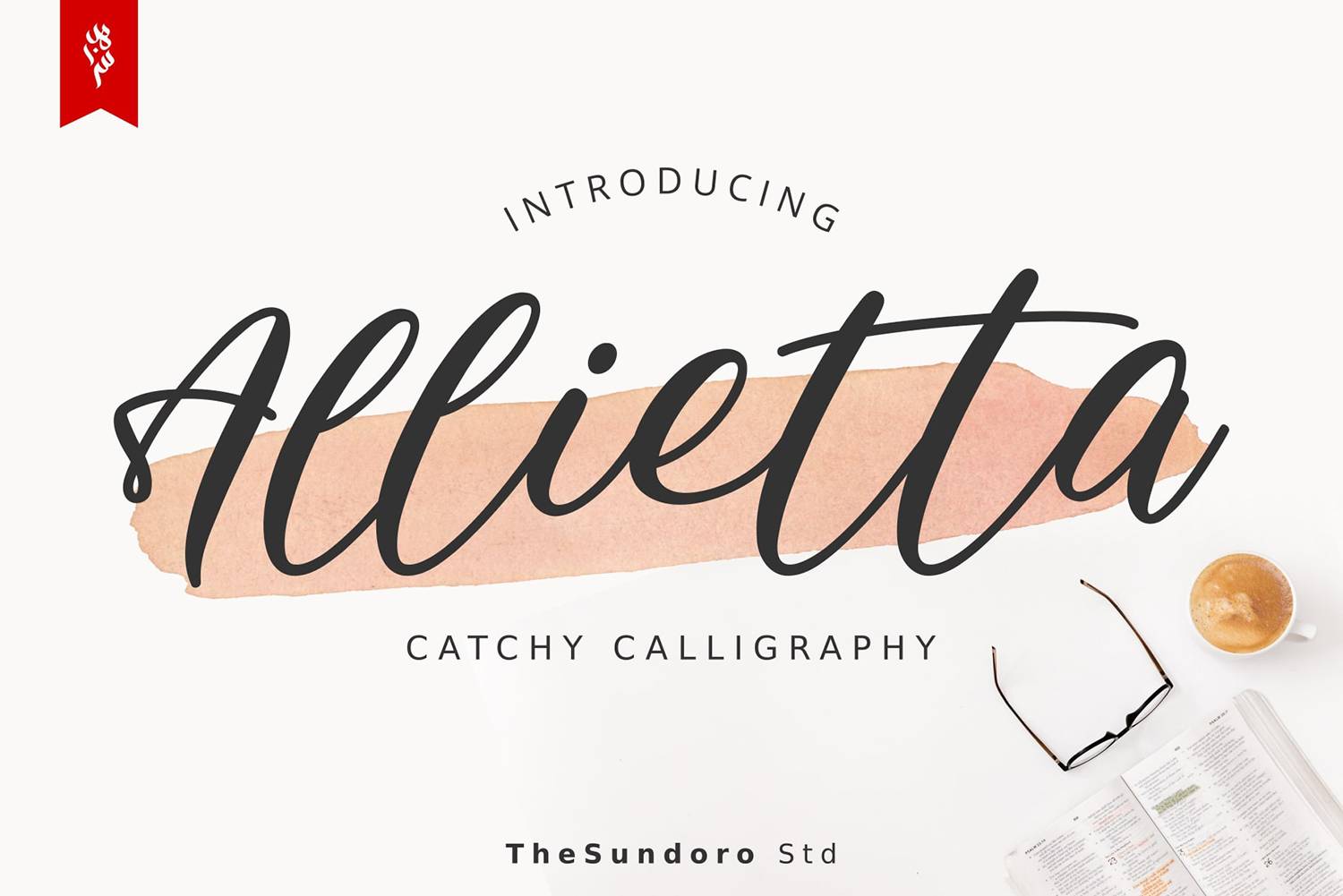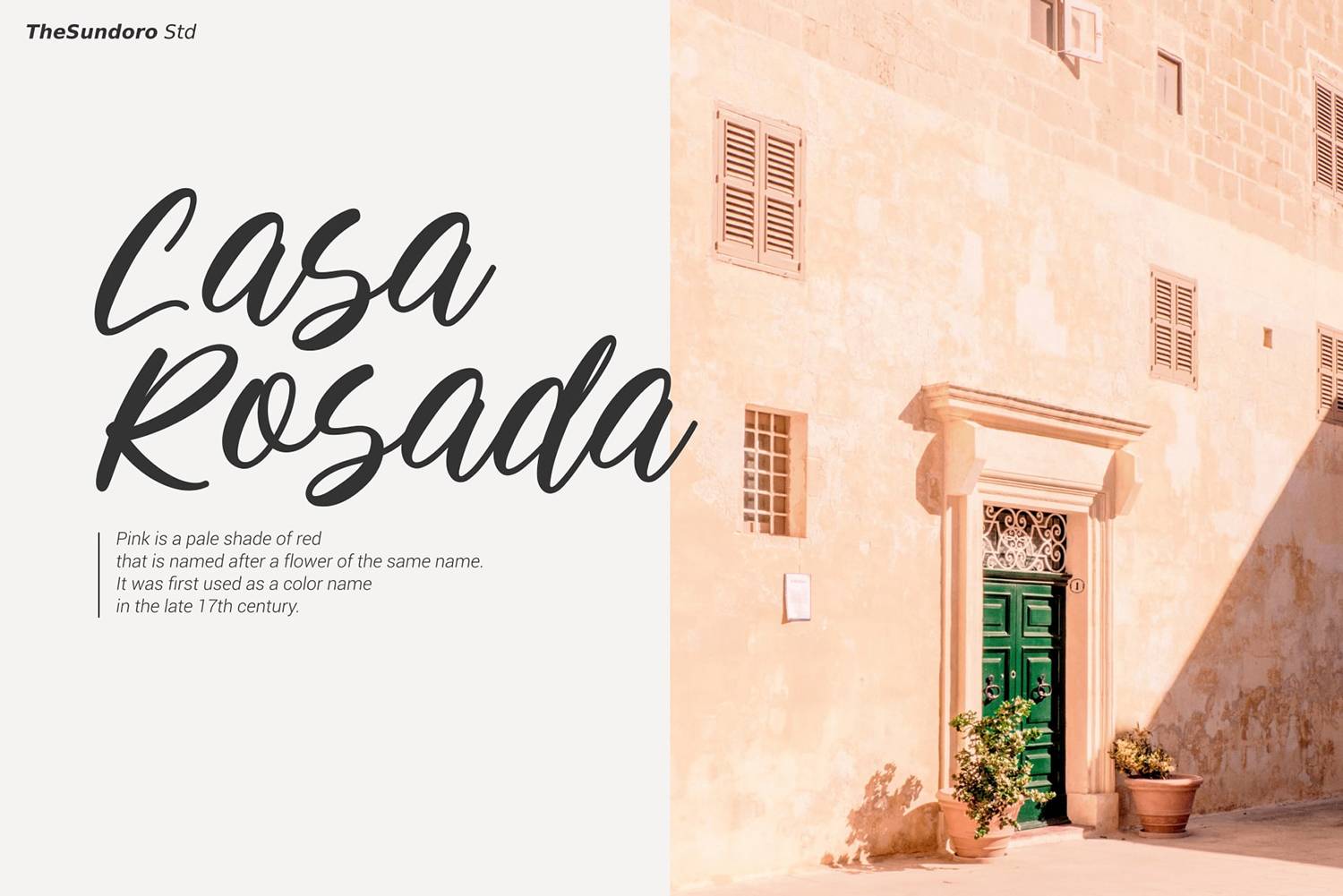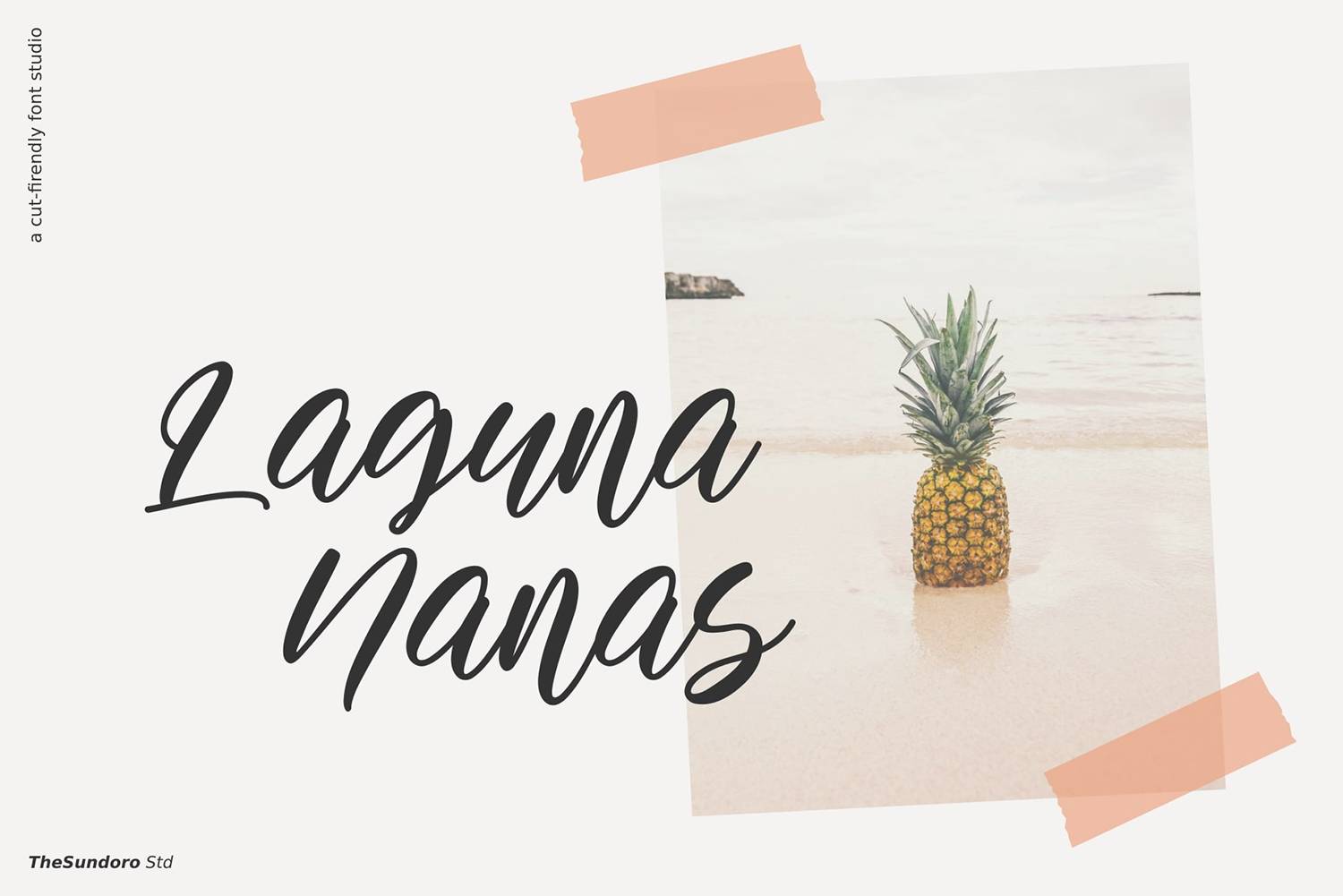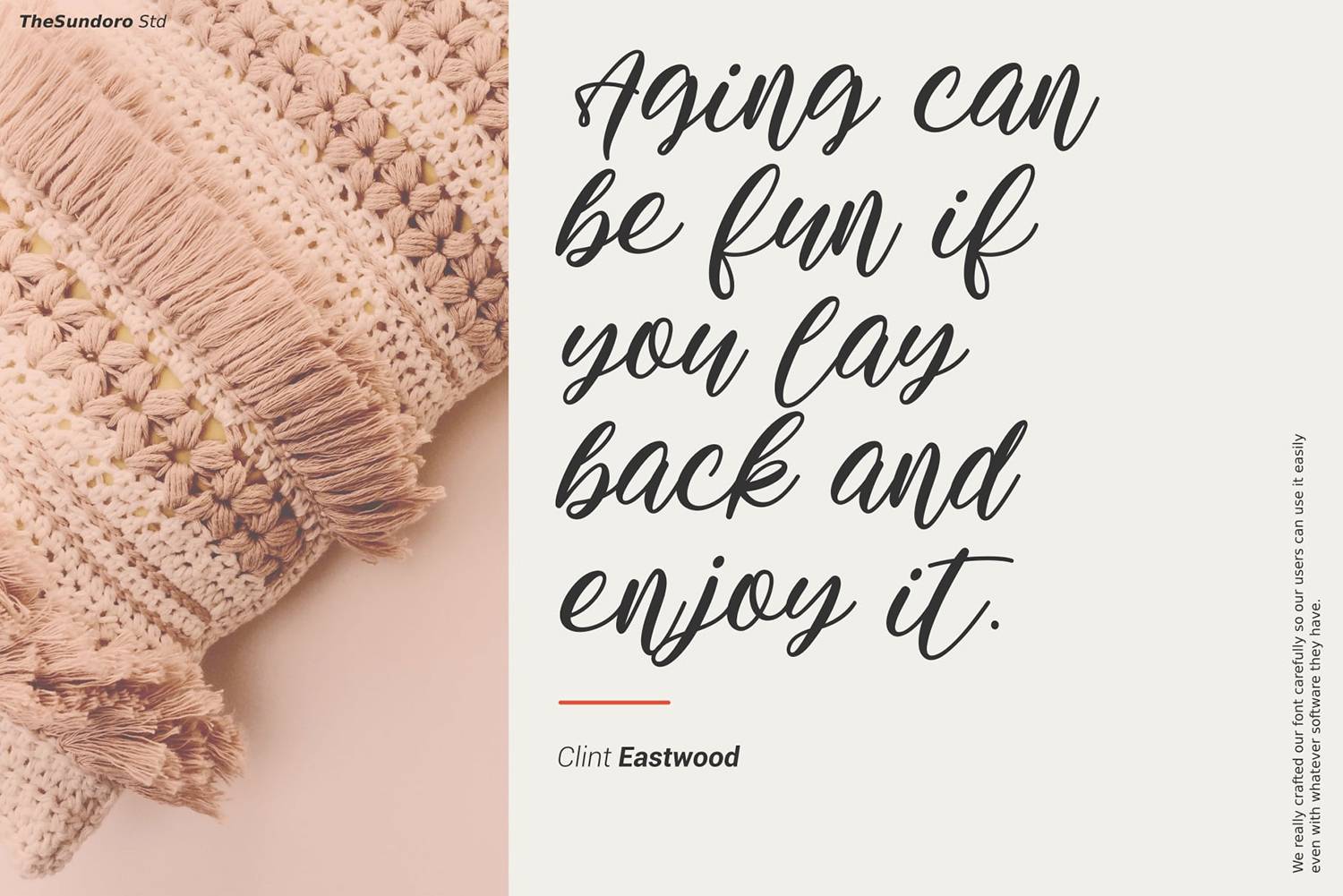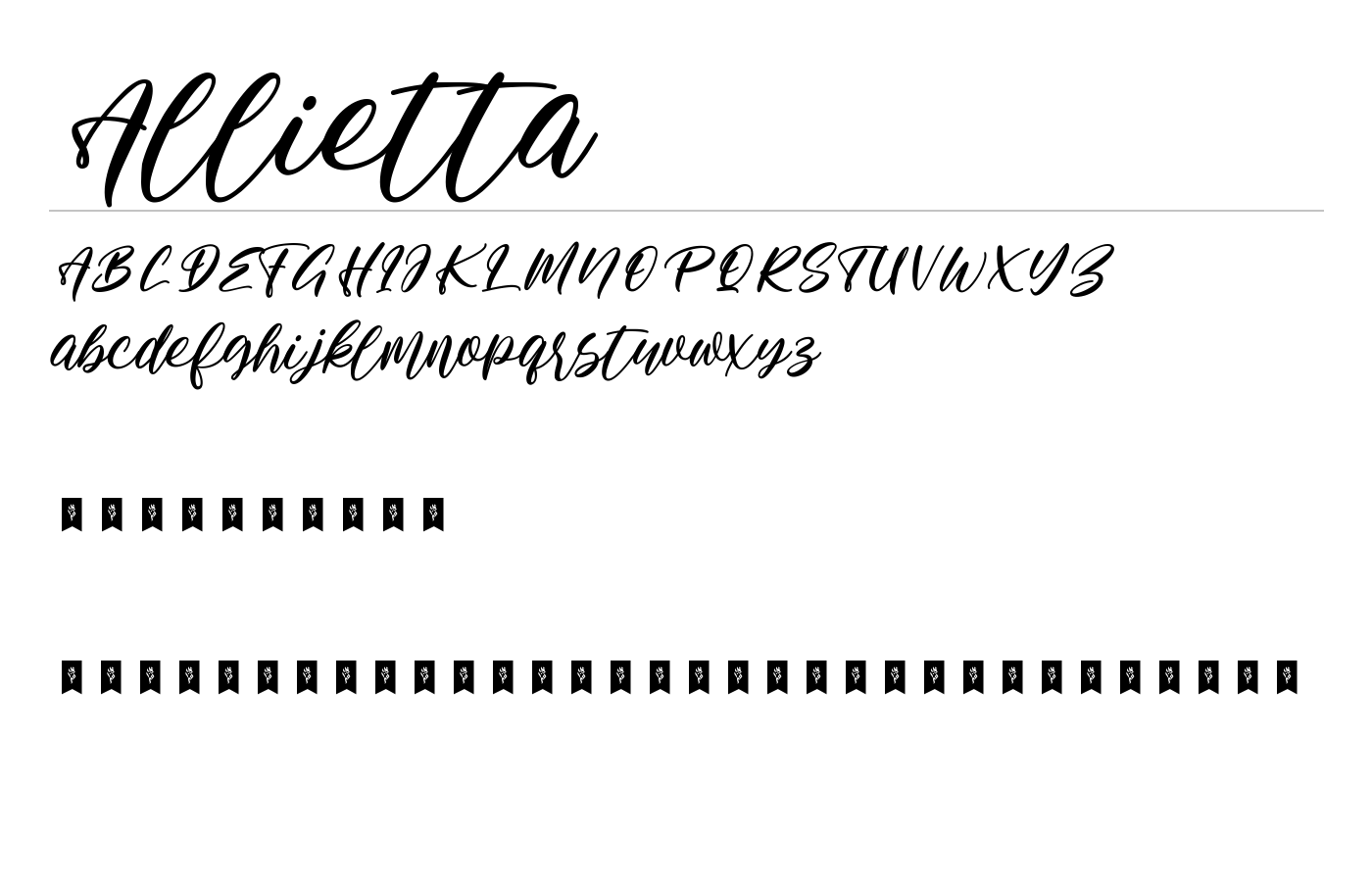
Allietta is a stylish script font with smooth, flowing strokes that give it a lively and elegant feel. Its hand-lettered style features medium contrast and slightly condensed letterforms, making it perfect for adding a personal, sophisticated touch to invitations, branding, and headlines. This font works beautifully in designs that aim to convey warmth, creativity, and charm.
Allietta Font
About Allietta Font